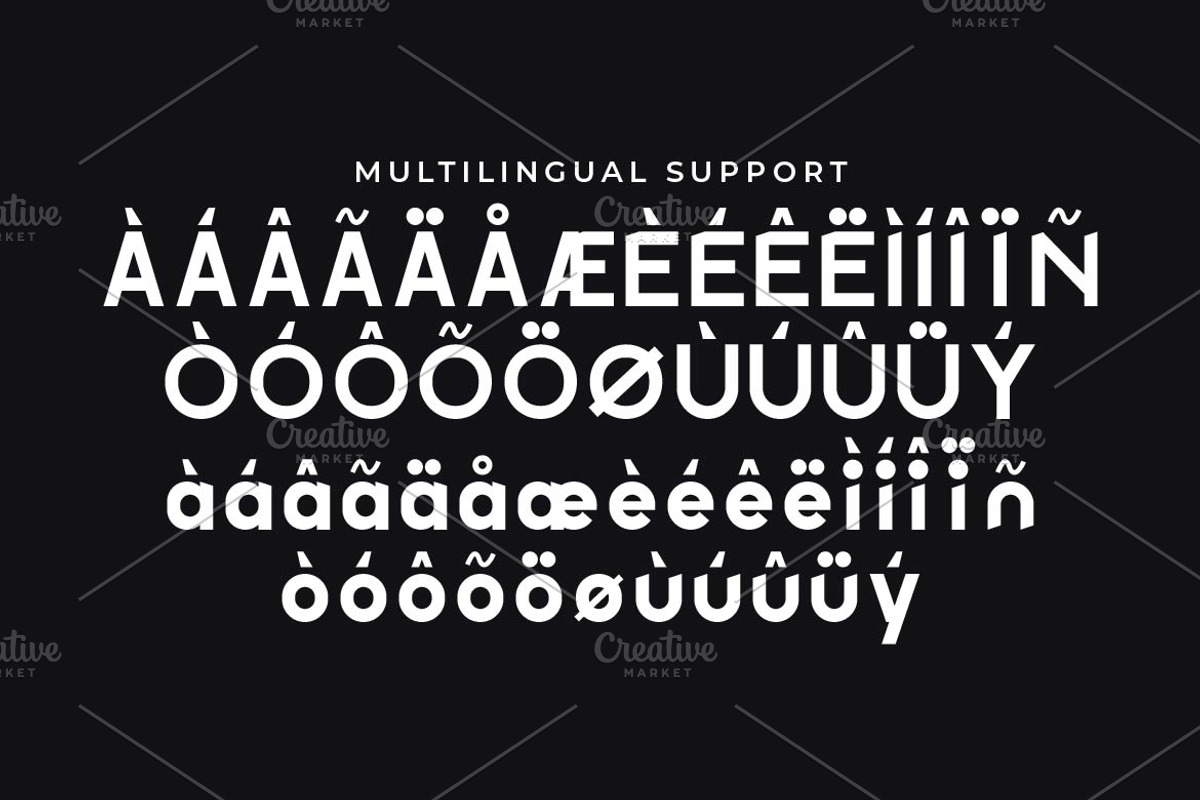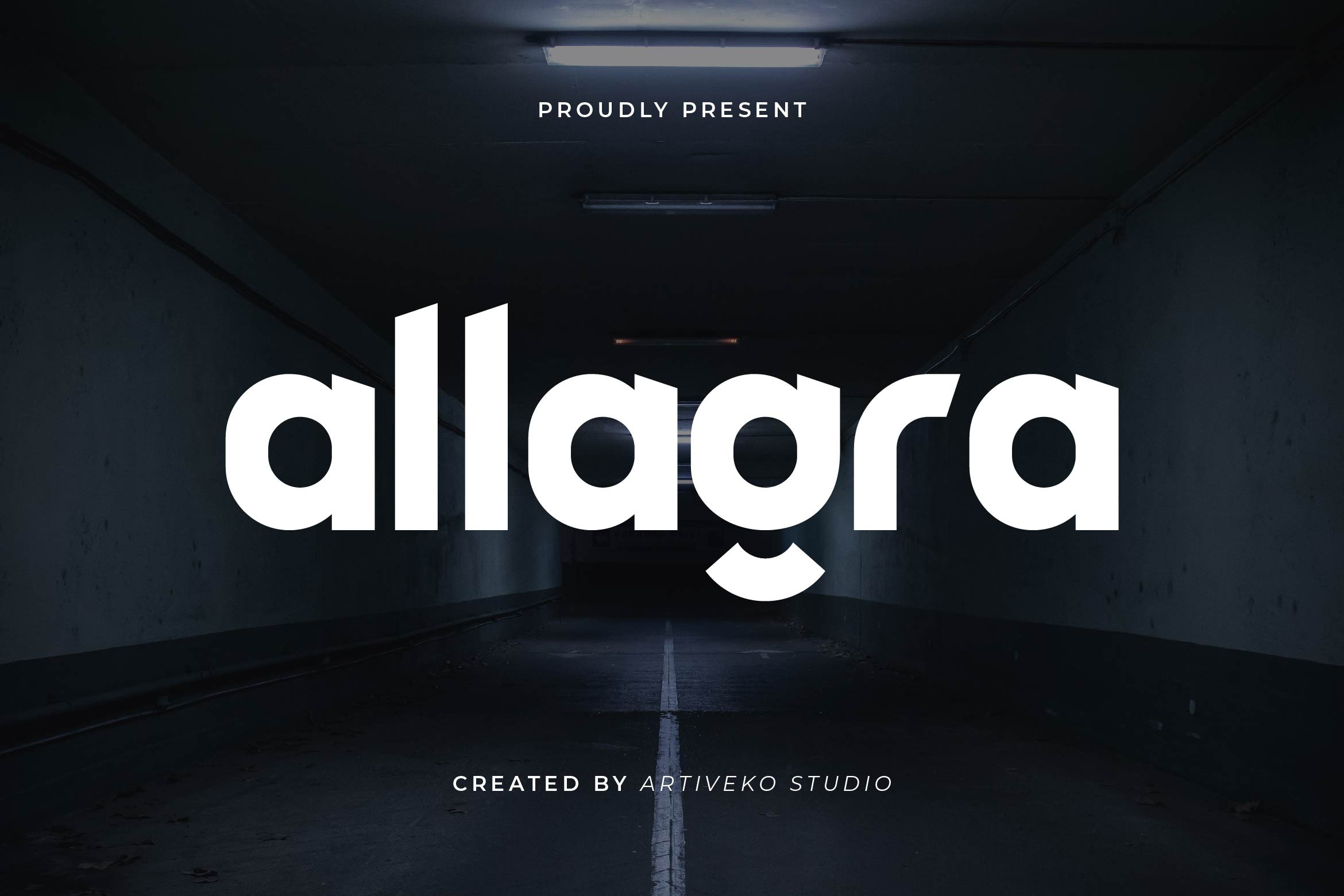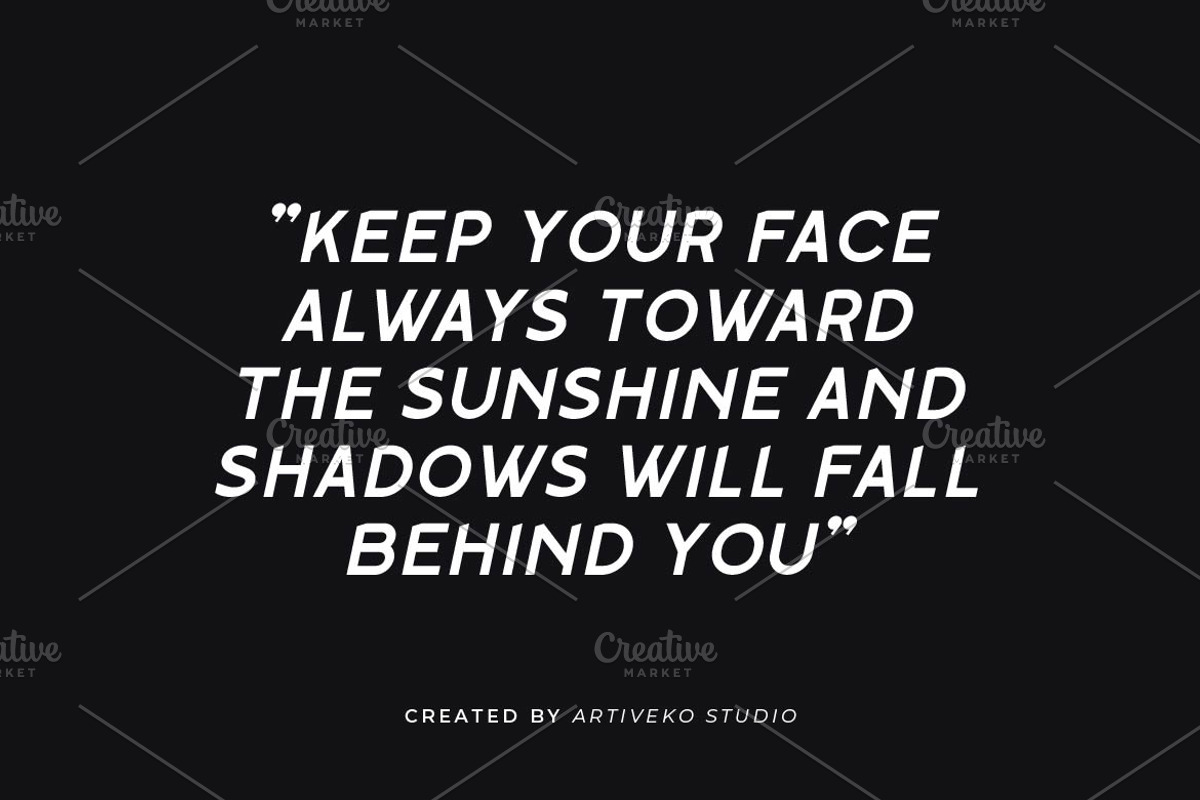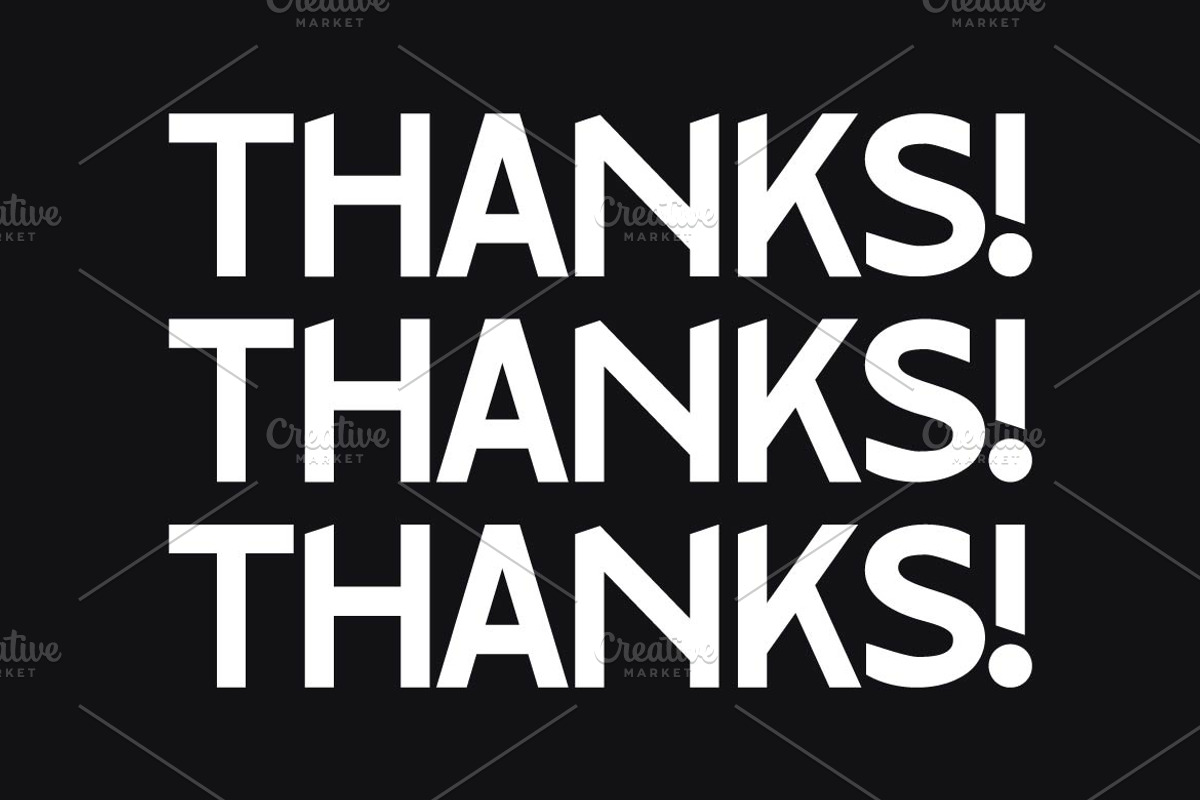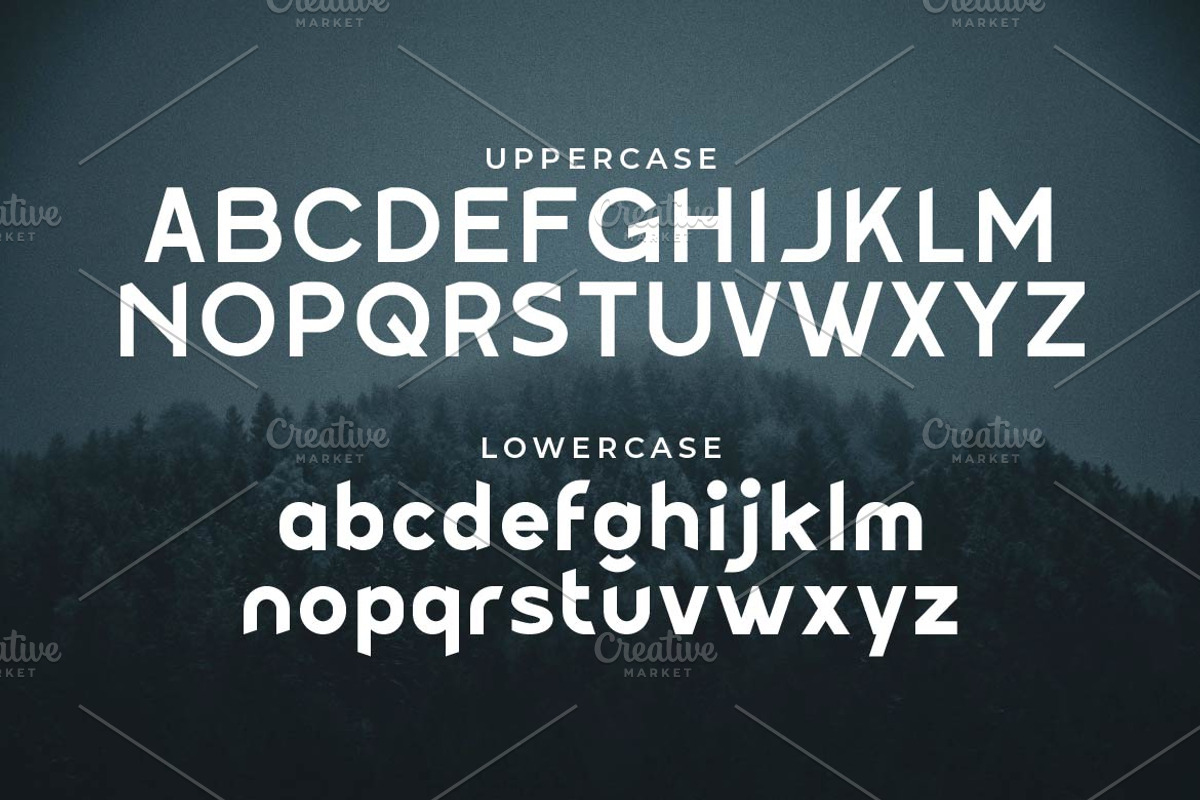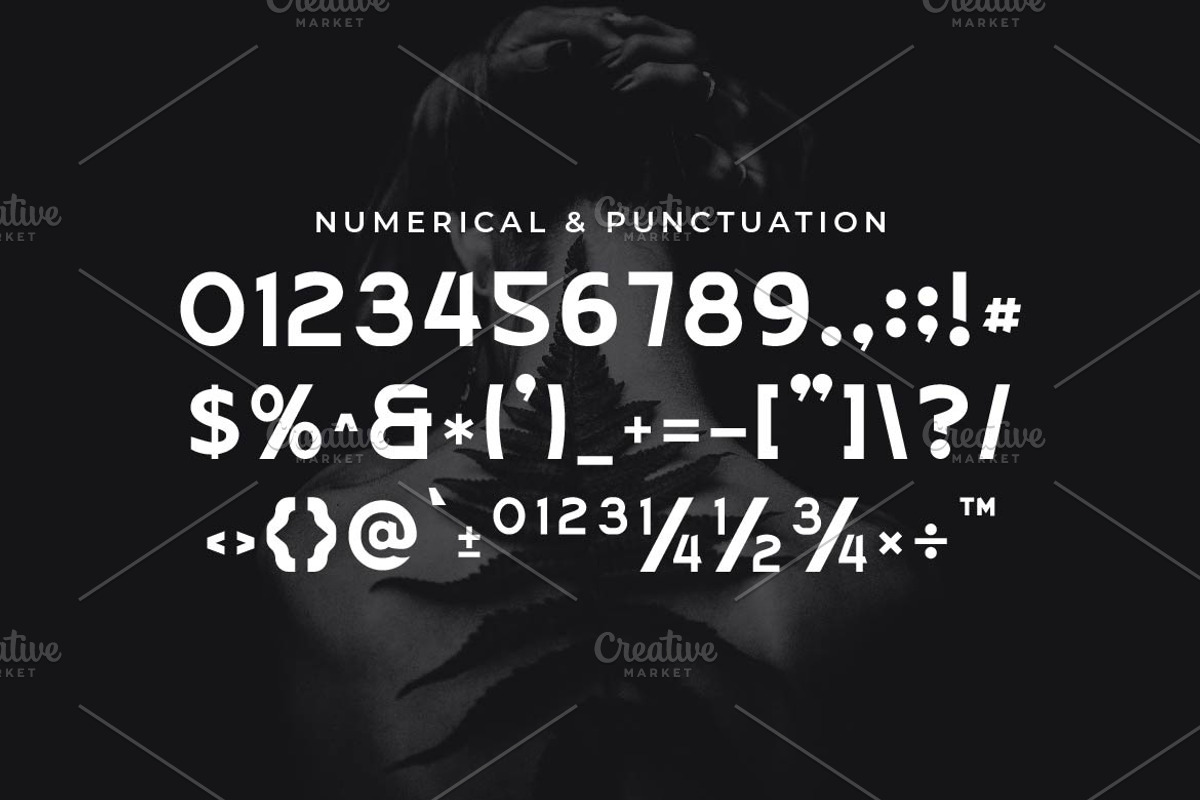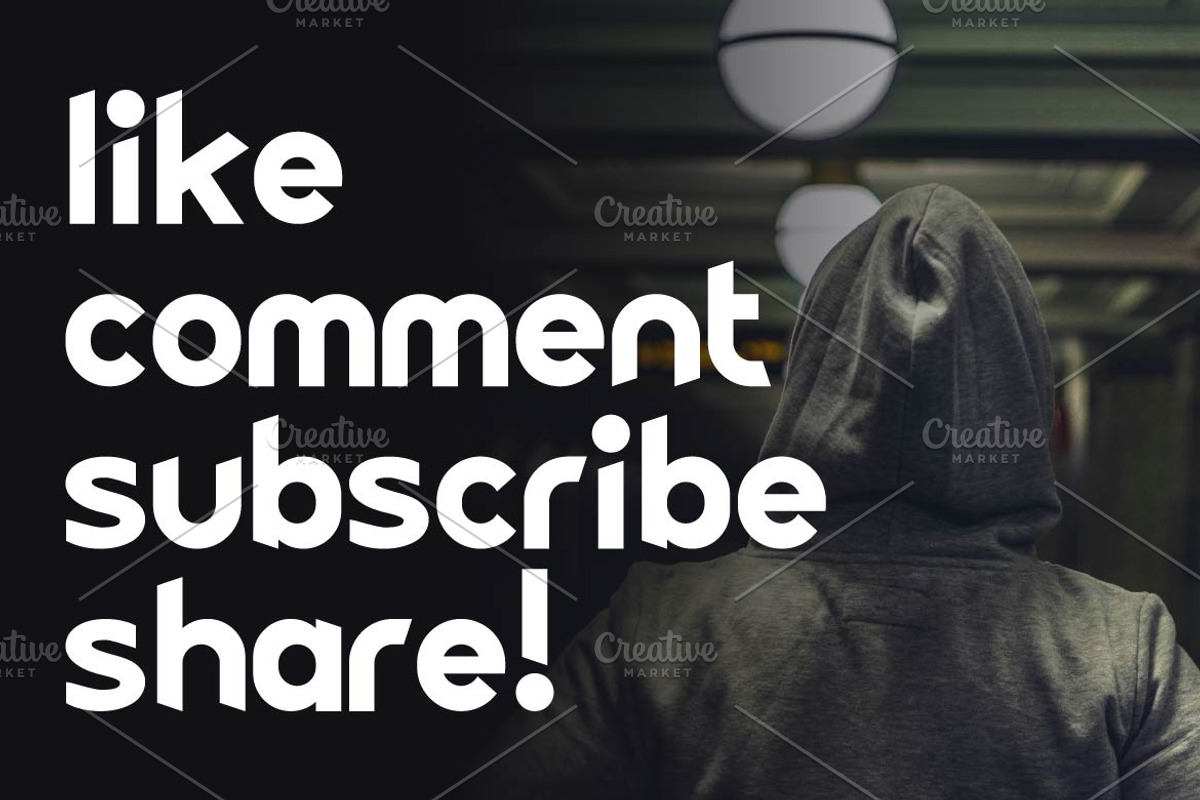
Allagra Modern Sans Font
Allagra is a modern sans serif font by Iwan Alwan, defined by its clean lines and balanced proportions that exude simplicity and elegance. Ideal for branding, editorial design, and digital interfaces, Allagra delivers a professional and versatile aesthetic suitable for a wide range of projects. With multilingual support, ligatures, and alternates, Allagra offers functionality and style, making it perfect for designs that demand clarity and contemporary sophistication.